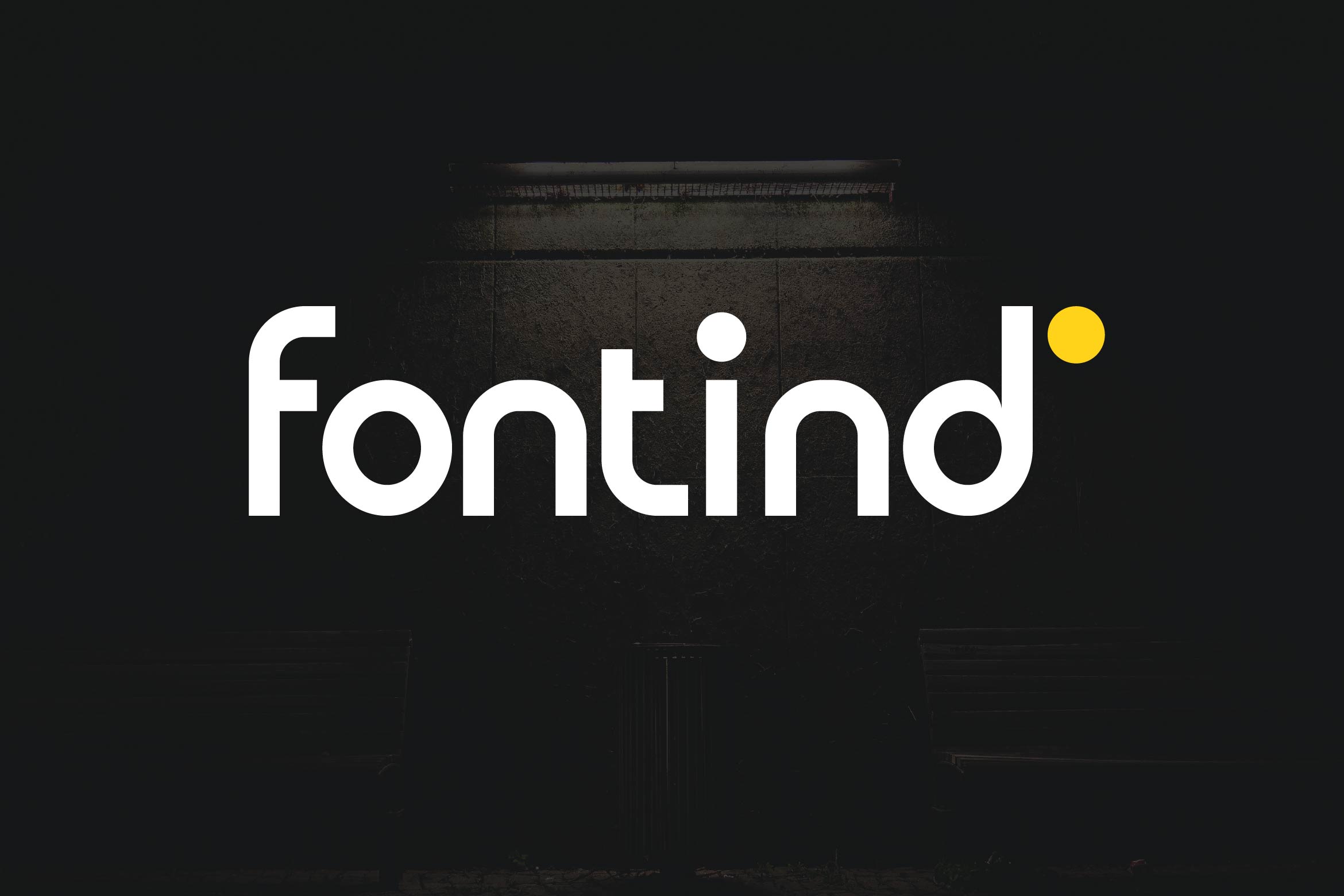
- Fontind Logo Sans Serif Font
Fontind is a sleek and minimalistic sans serif font designed specifically for bold and impactful logos. Featuring clean geometry, smooth curves, and a contemporary aesthetic, Fontind ensures your brand stands out with elegance and confidence.
Perfect for wordmarks, branding systems, packaging, editorial titles, and social media graphics, Fontind strikes the ideal balance between simplicity and sophistication. Its well-structured design guarantees clarity and adaptability across print and digital platforms.
This font includes uppercase and lowercase letters, numerals, punctuation, multilingual support, and stylistic alternates for creative customization.
Create a modern and timeless identity with Fontind — the logo sans serif font that combines precision, strength, and style.